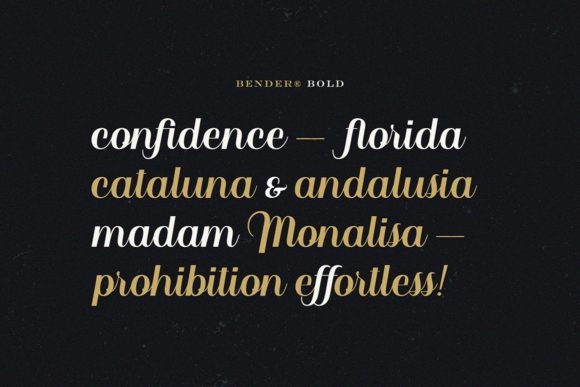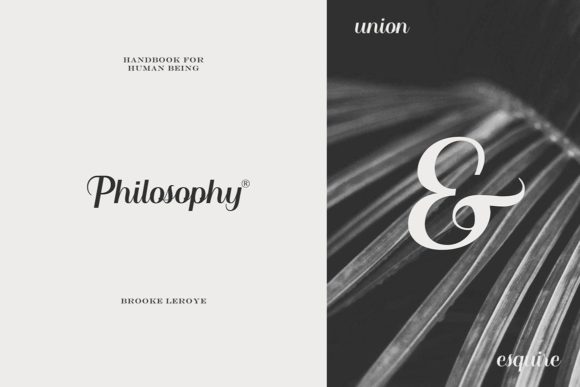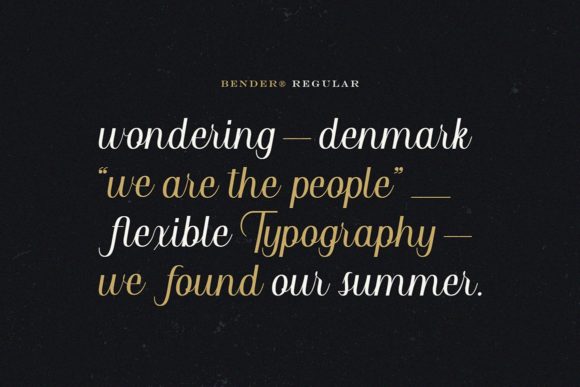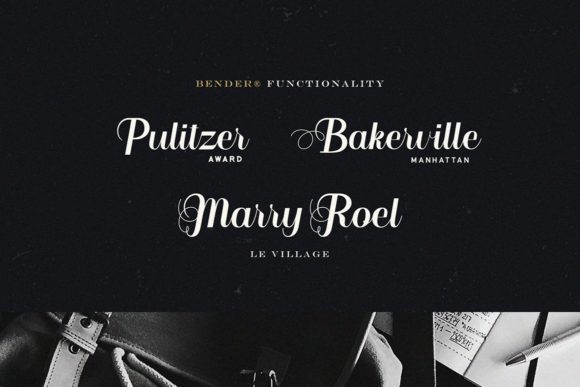
Bender Font
About Bender Font
Bender is a gorgeously light and playful script with a fun feel. Use it to turn any design project into a true standout.